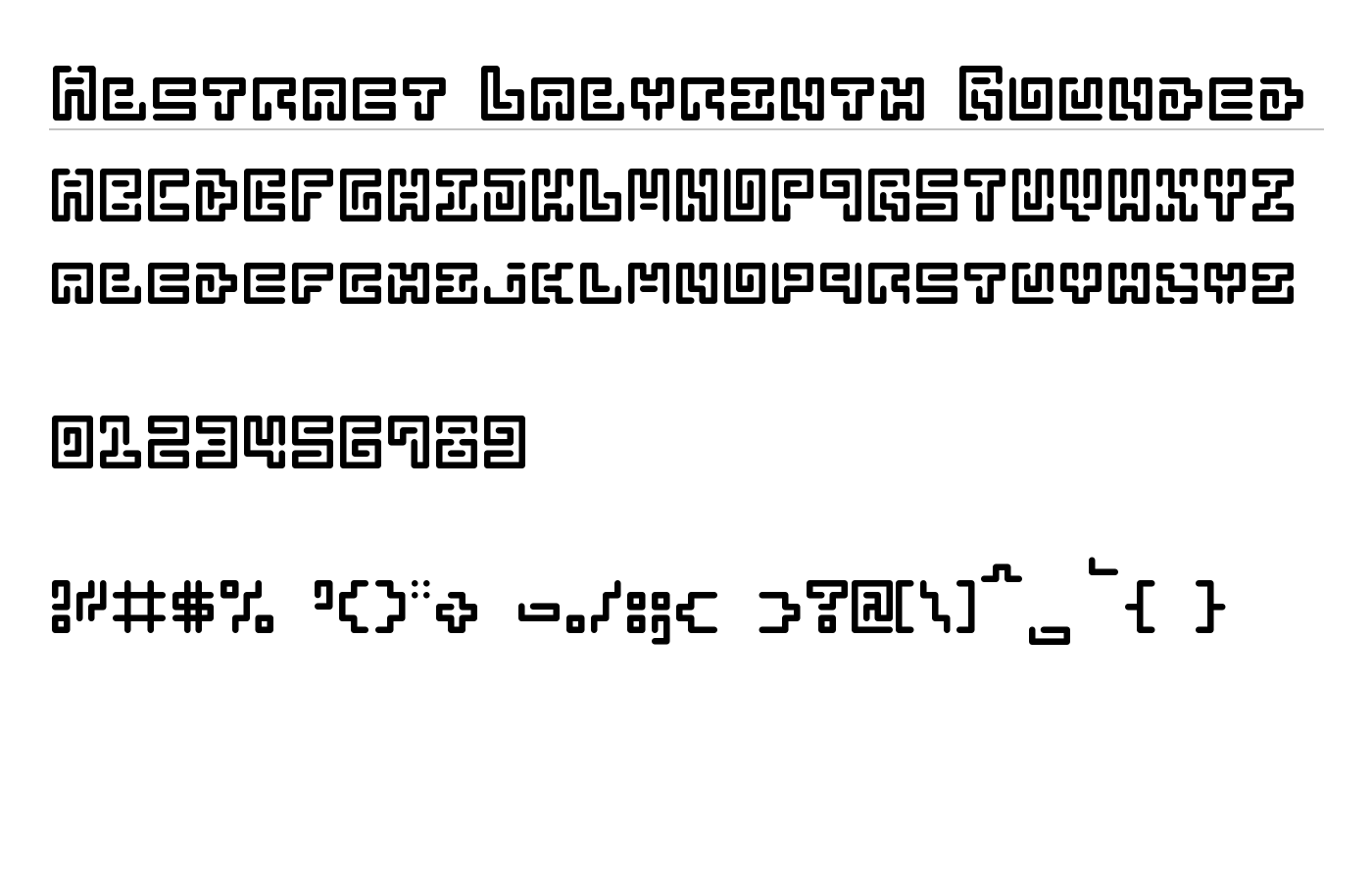
Abstract Labyrinth Rounded is a unique geometric sans serif font featuring rounded edges and bold, maze-like letterforms that create a playful yet tech-inspired feel. Its uniform stroke weight and boxy shapes make it ideal for modern, futuristic designs, particularly in logos, posters, and digital branding where a standout, unconventional look is desired. This font works best at larger sizes, bringing a distinctive style that communicates creativity and innovation.
Abstract Labyrinth Rounded Font
About Abstract Labyrinth Rounded Font